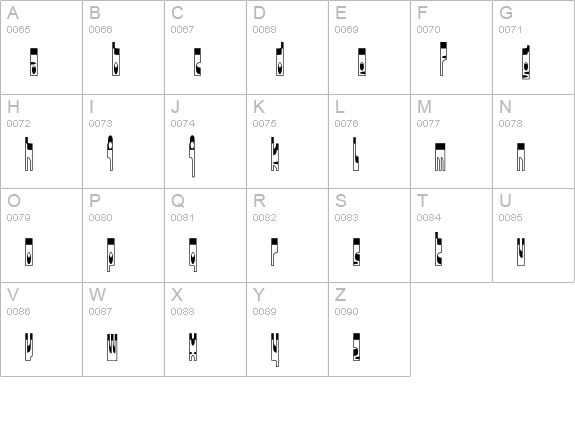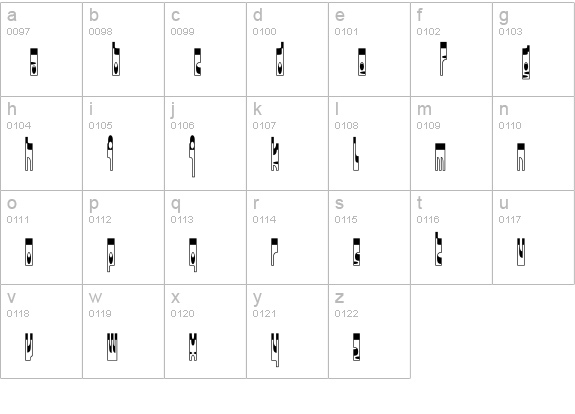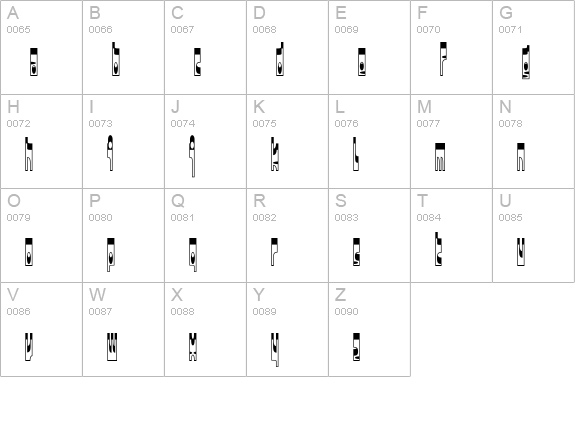
Darkside-Bright font is a captivating and stylish typeface that effortlessly balances the dark and bright elements of design. With its unique blend of edginess and elegance, this font is perfect for creating eye-catching headings, logos, posters, and more. The sharp lines and intricate details of Darkside-Bright font make it stand out from the crowd, adding a touch of sophistication to any project. Best of all, Darkside-Bright font is available for free download at FontsMarket.com. Whether you're a designer looking to add a touch of drama to your work or a creative looking for a font that makes a statement, Darkside-Bright font is sure to impress. Download it today and unleash your creativity with this stunning typeface.